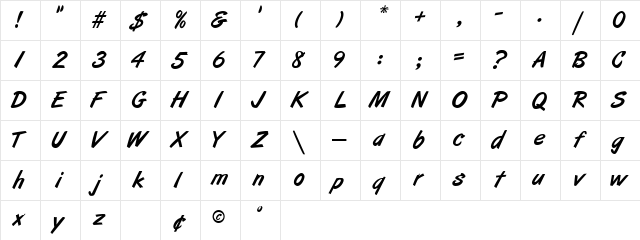
ft12 Medium
Design Context for ft12 Typeface
ft12 is a composed and adaptable typeface that performs quietly and consistently across a wide range of design contexts.